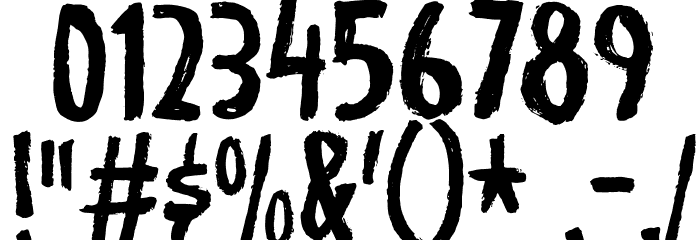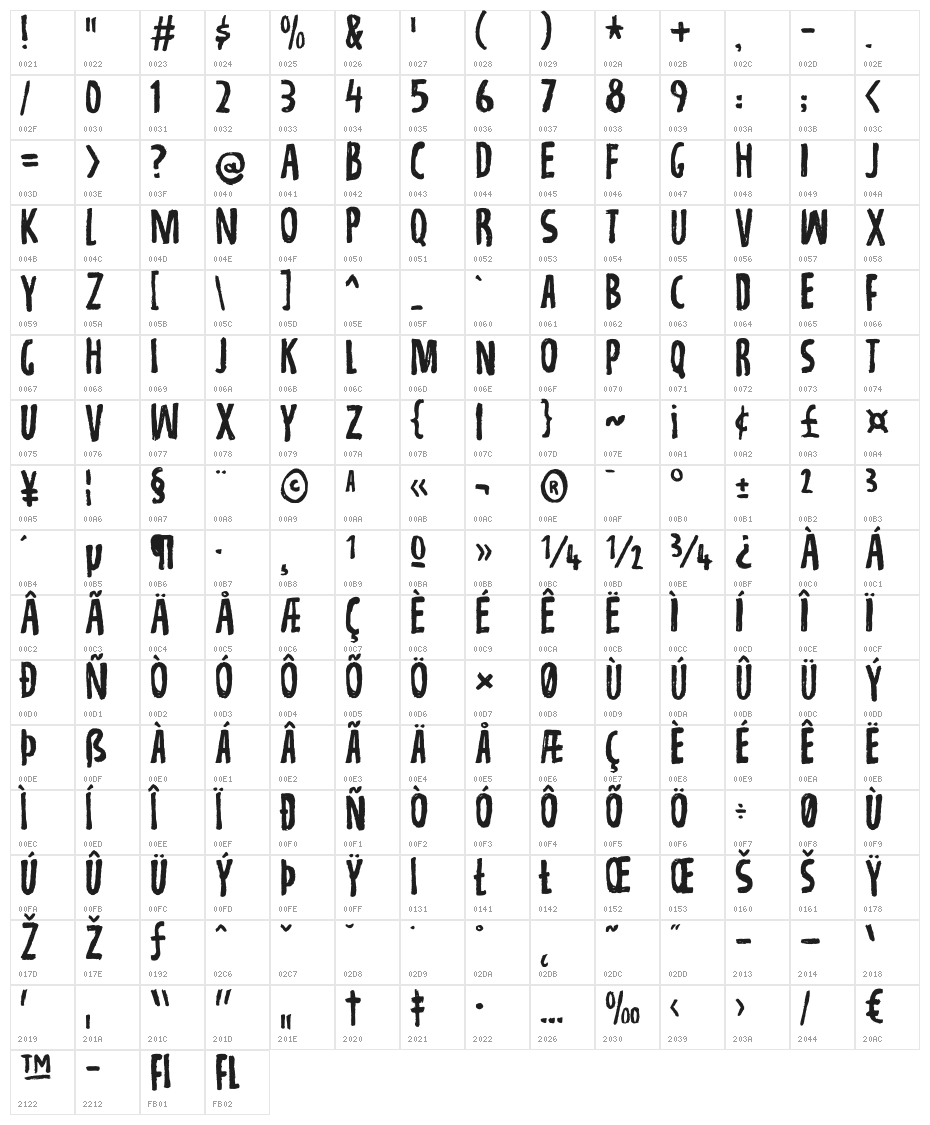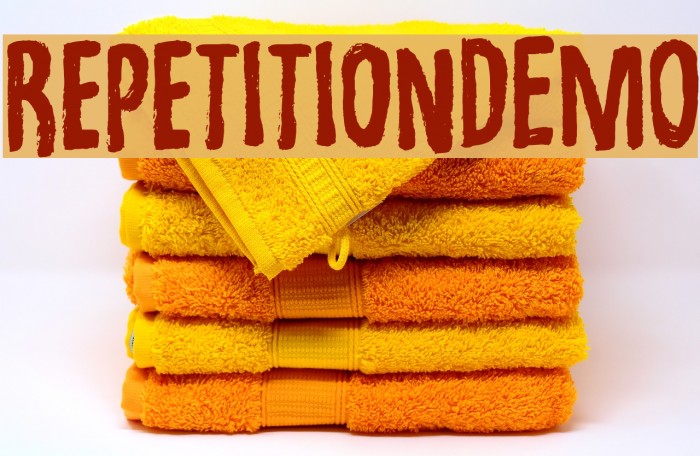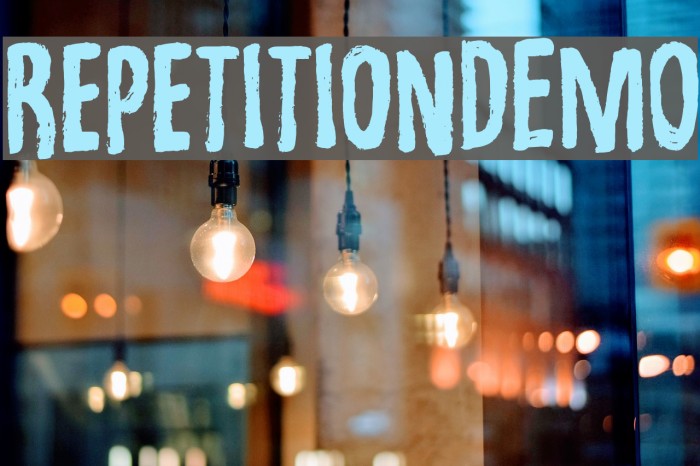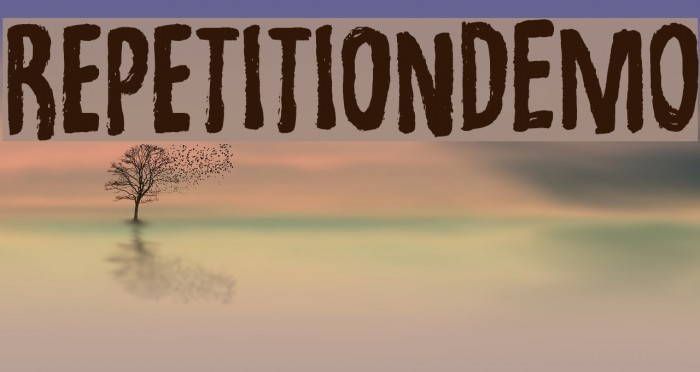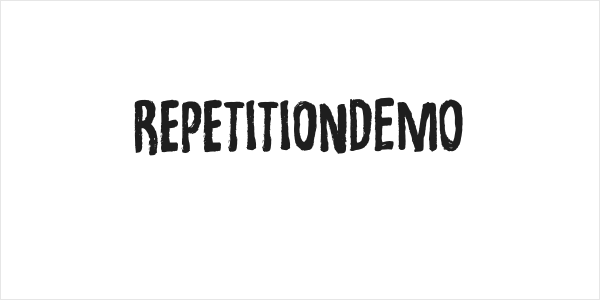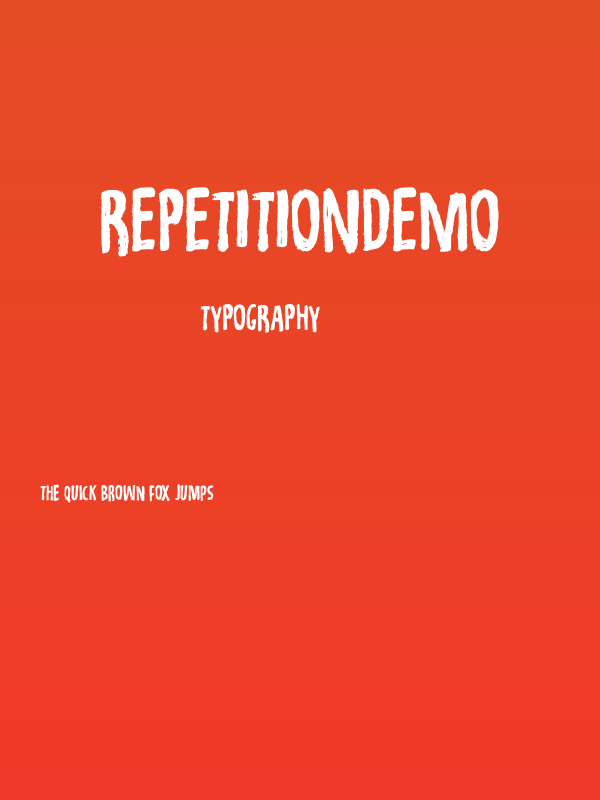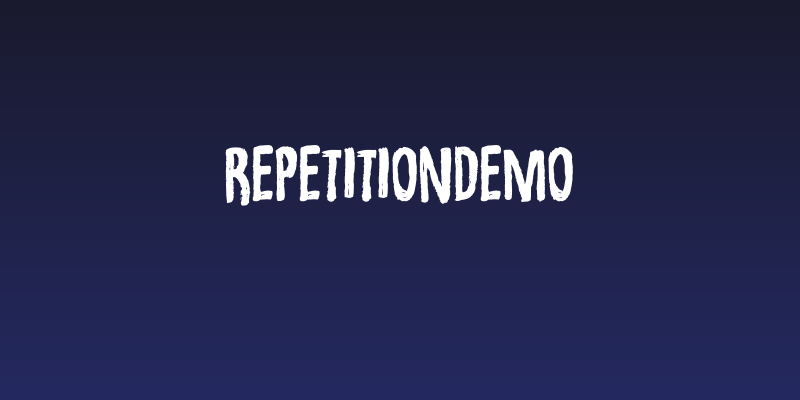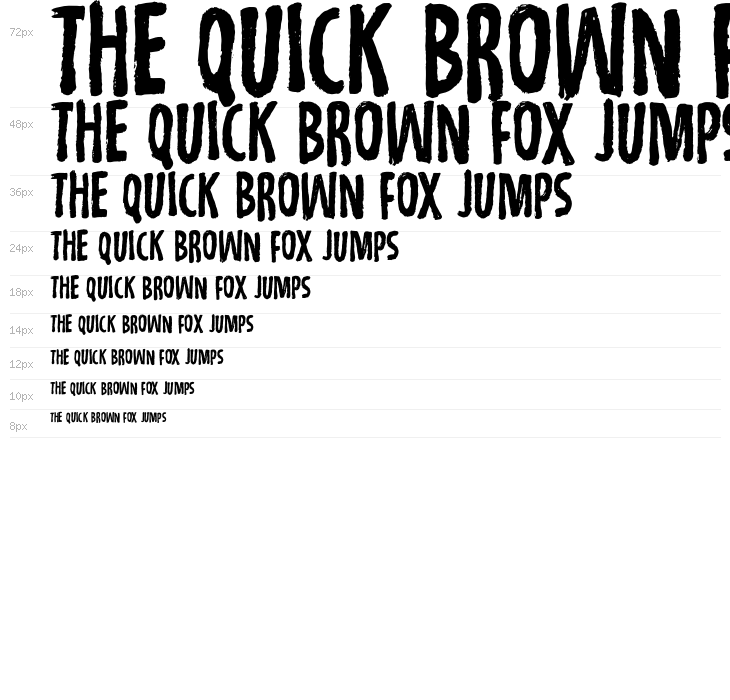
RepetitionDEMO Font
RepetitionDEMO Description
This font features a bold and rugged style with a hand-painted appearance. The letters are uneven and slightly distressed, giving them a raw and organic feel. The uppercase and lowercase characters maintain a consistent height, while the numbers and special characters follow the same bold aesthetic. The strokes are thick and irregular, adding to the font's dynamic and energetic look. This style is reminiscent of street art or graffiti, making it stand out with its unique and expressive character.
| Proposed Projects | Ideal for projects that require a bold statement, such as posters, album covers, streetwear branding, or any design needing an edgy, artistic touch. |